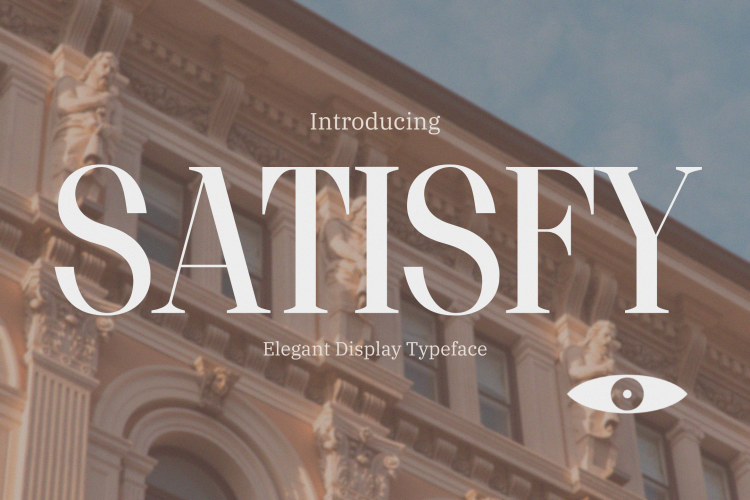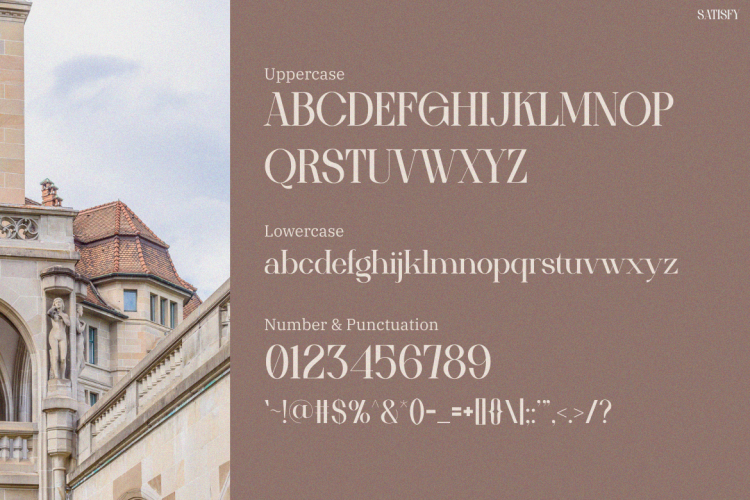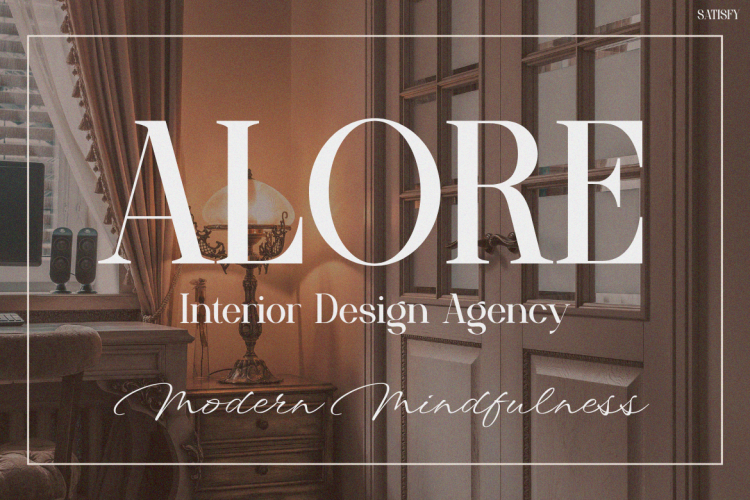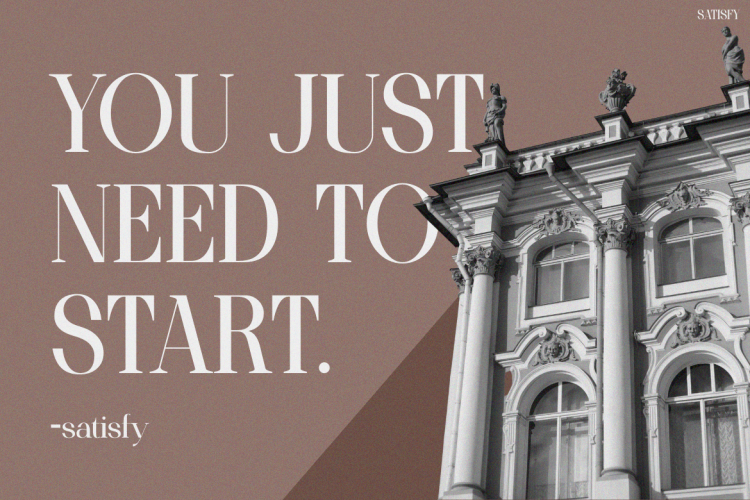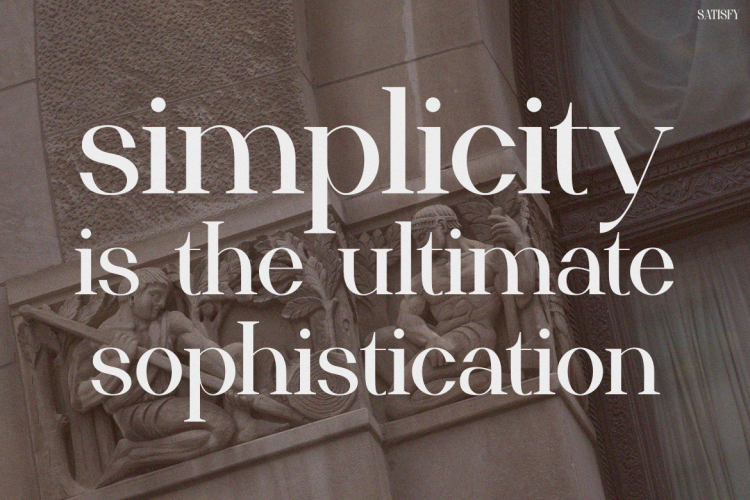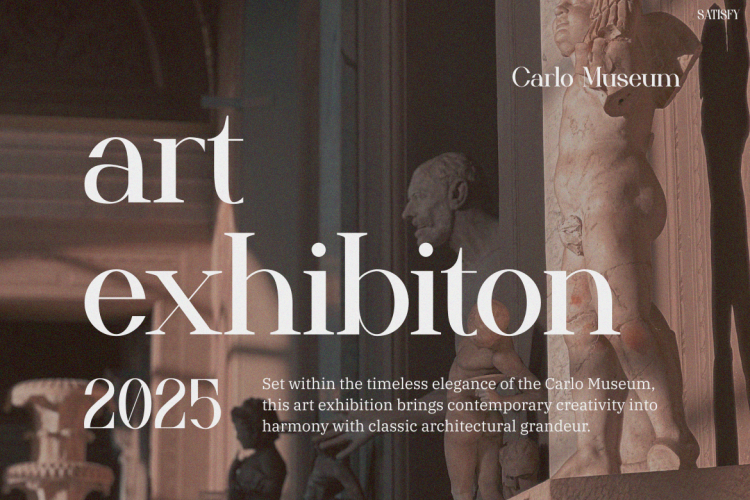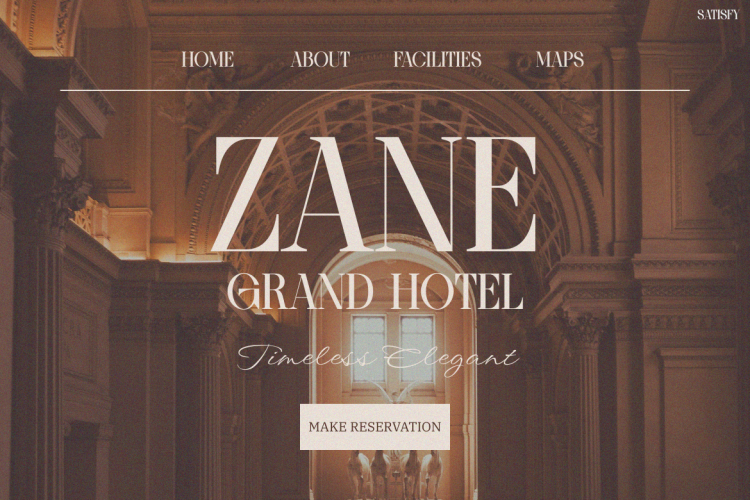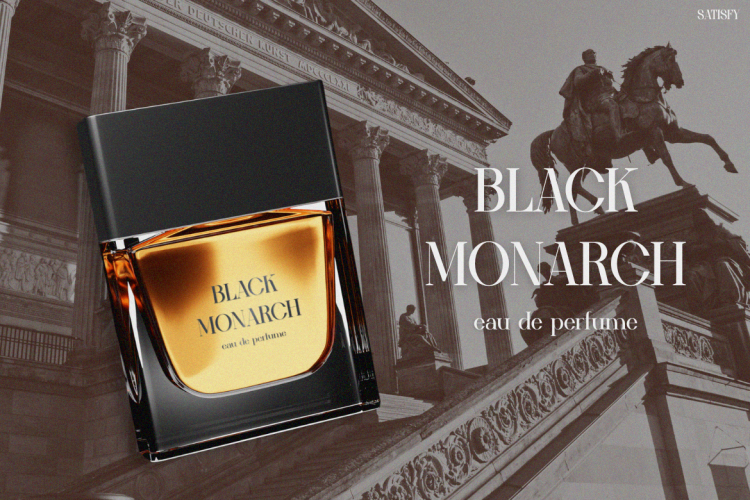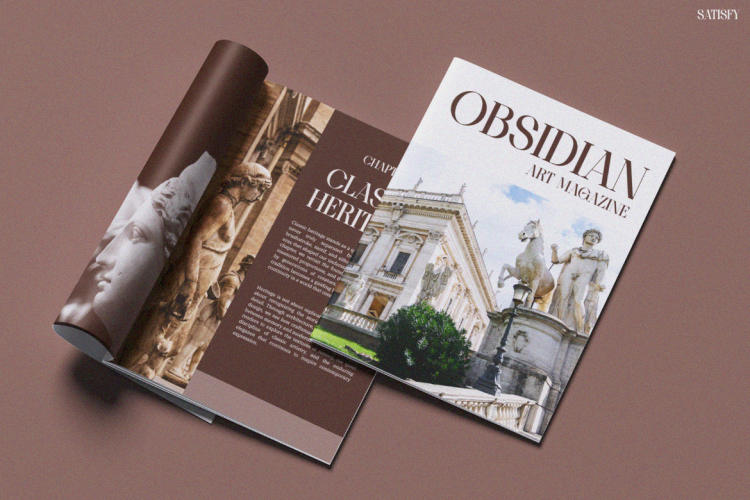
Instagram Font SATISFY โ Elegant, Modern, and Uniquely Expressive
Instagram Font SATISFY brings a refined and modern serif style that feels instantly premium. It stands out because each curve looks intentional and smooth. The font remains elegant while staying easy to read. Moreover, its contrast and tall shapes create a classy and flexible aesthetic. It also adapts well to branding, social media posts, magazines, posters, product packaging, and digital campaigns. The preview images show how beautifully it pairs with architecture, fashion themes, luxury items, and editorial layouts. Because of this versatility,ย SATISFY becomes a powerful tool for any visual creator.
Every character in Instagram Fontย SATISFY carries a sense of confidence and style. The uppercase letters feel bold, while the lowercase adds softness and balance. This combination gives your design a strong and elegant presence. It also shines when used with minimal backgrounds or clean photography. The smooth curves help the font feel modern, and the sharp edges keep it timeless.
The preview graphics highlight how well the font works with neutral colors and premium visuals. It fits naturally into hotel branding, perfume ads, gallery posters, and interior design themes. Furthermore, the tall letterforms add rhythm and enhance editorial layouts. Designers who want a polished mood will appreciate its refined structure. It is also great for business cards, product labels, lifestyle catalogs, magazine covers, and stylish social media graphics.
Who Is It Perfect For?
Instagram Font SATISFY is ideal for:
Graphic designers seeking a classy display font
Branding teams working with boutique or luxury clients
Content creators who want elegant social media posts
Fashion, beauty, and lifestyle brands
Editors and layout designers
Entrepreneurs who need a premium brand identity
Closing Statement
Instagram Font SATISFY is more than a typeface. It is a design upgrade that adds elegance and impact to every project. Its clean shapes and luxurious style make any layout feel polished. If you want a font that looks modern and refined, this is the perfect choice. Bring a high-end touch to your creative work with Instagram Font SATISFY.